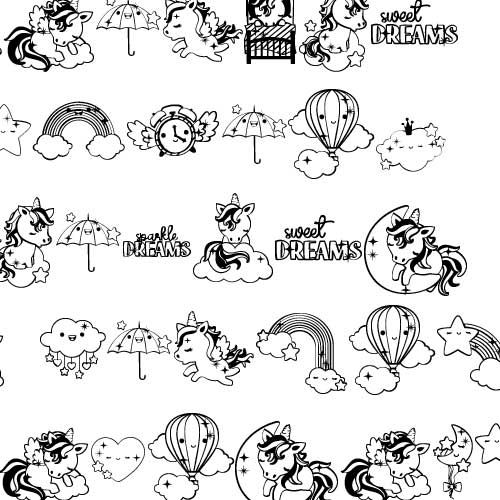
DB Sparkles - Dreams - DB
This fun doodlebat font features 26 adorable kawaii style unicorns, fantasy and dream elements complete with sparkling dazzle. Perfect for cards, crafts, gifts, parties, scrapbook pages, planner stickers and more!